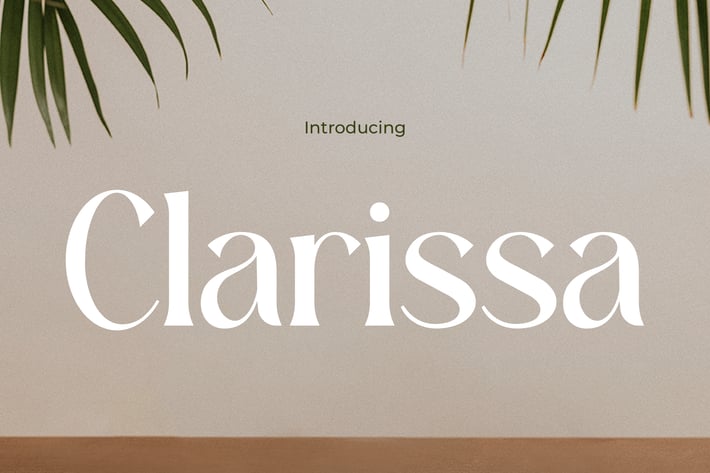
Clarissa Modern Elegant Font
Clarissa – Classy Serif Typeface for Luxury Design
Clarissa is an editorial-inspired display typeface with high-contrast strokes, soft terminals, and graceful proportions—crafted to deliver a refined yet approachable tone. Its elegant vibe blends timeless sophistication with contemporary styling, perfect for fashion editorials, luxury branding, or modern print layouts. With its serif structure and organic curves, Clarissa balances poise and personality, offering designers a characterful tool for expressive design.
Designed to evoke confidence and clarity, Clarissa speaks the language of beauty brands, boutique packaging, and style-conscious start-ups. Whether it’s for lookbooks, magazine covers, skincare labels, or luxury brand presentations, Clarissa offers that editorial polish buyers crave. Its flowing lines and stylish rhythm help elevate your layout from standard to standout—inviting audiences to linger longer.
Key Features :
Elegance Built for Impact
- High contrast serif for a sophisticated, editorial aesthetic
- Soft edges and proportional flow for warmth and femininity
- Ideal for branding, magazine layouts, packaging, and website headers
- Easily pairs with minimalist or decorative fonts
- Refined legibility even at medium display sizes
Bring a refined, editorial edge to your next project with Clarissa. Whether you're crafting a luxury skincare label or a fashion-forward lookbook, this typeface is your shortcut to timeless elegance. Add Clarissa to your design toolkit today—and create visuals that don’t just speak but seduce.